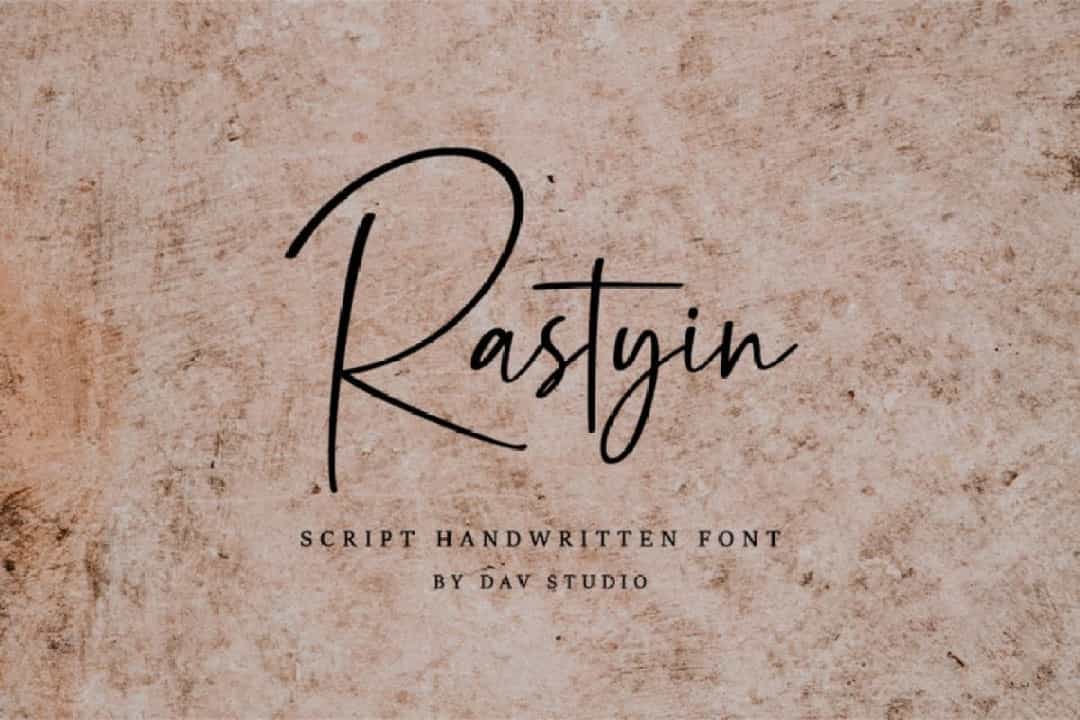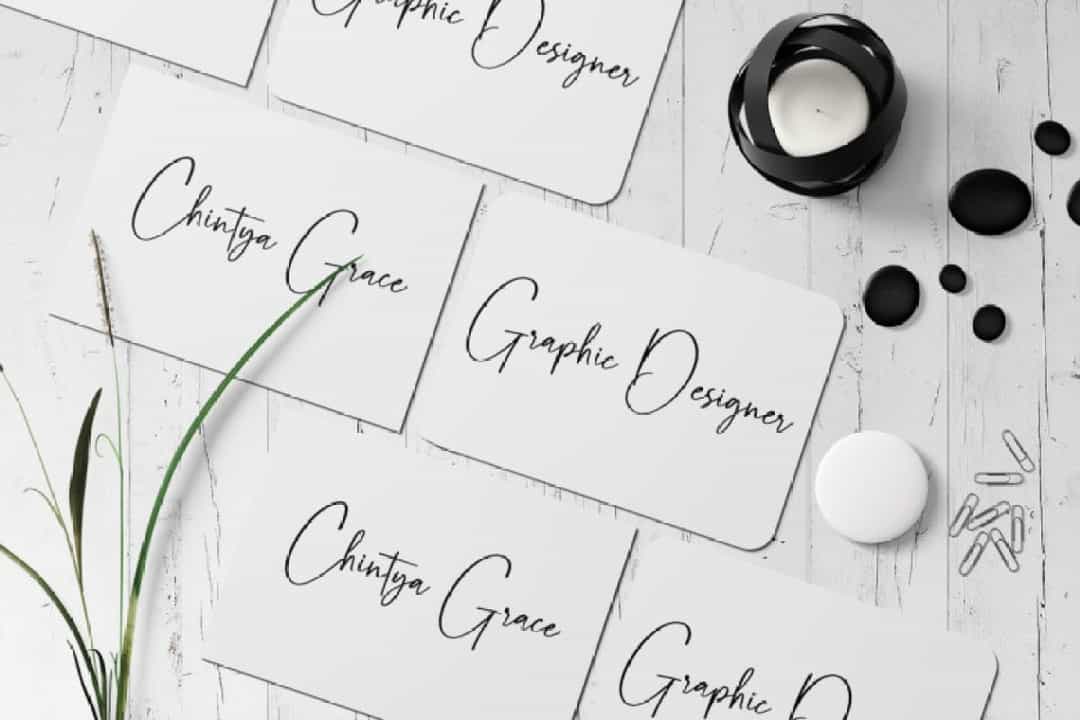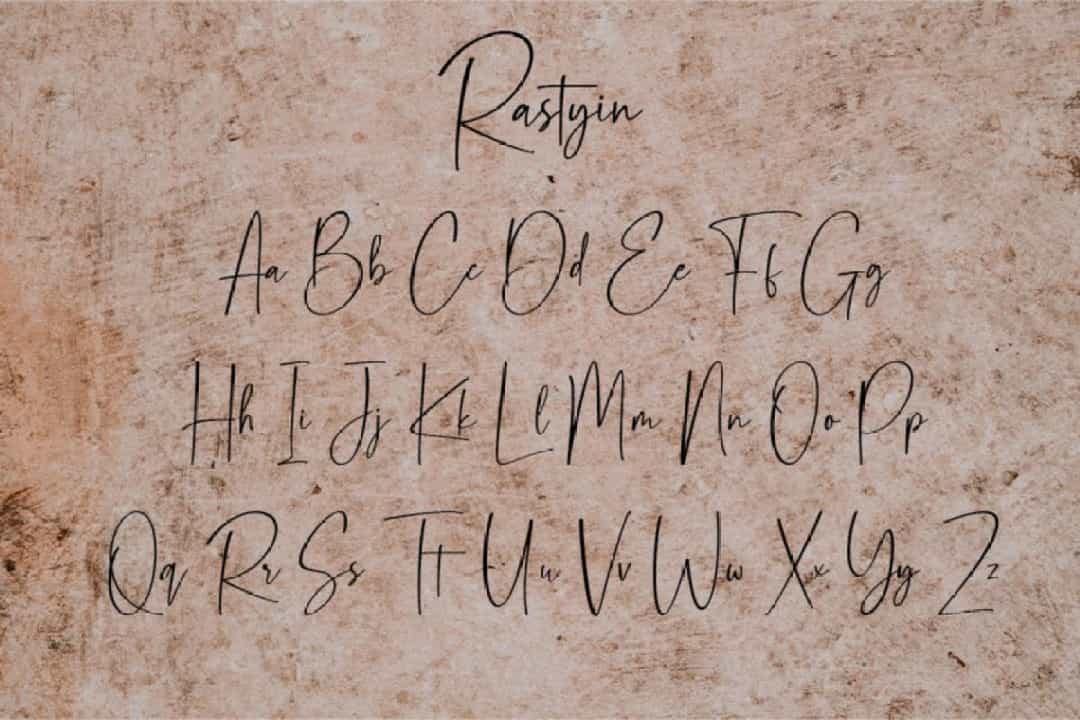
Discover Rastyin Handwritten Script Font, part of the Handwritten Script collection—a versatile and unique font perfect for adding a personal touch to your projects. Download it for free and enjoy crafting designs with style, from invitations to social media posts. This font is available exclusively for personal use, giving you the freedom to create without limits. Unlock your creativity with Rastyin Handwritten Script Font today!
Rastyin Font – an innovative, modern typeface! This signature font is ideal for personal branding and any amazing project like invitations, logos, wedding stationery as well as postings on social media, advertising packaging label designs, product packaging and photography, watermarks special occasions and so on !